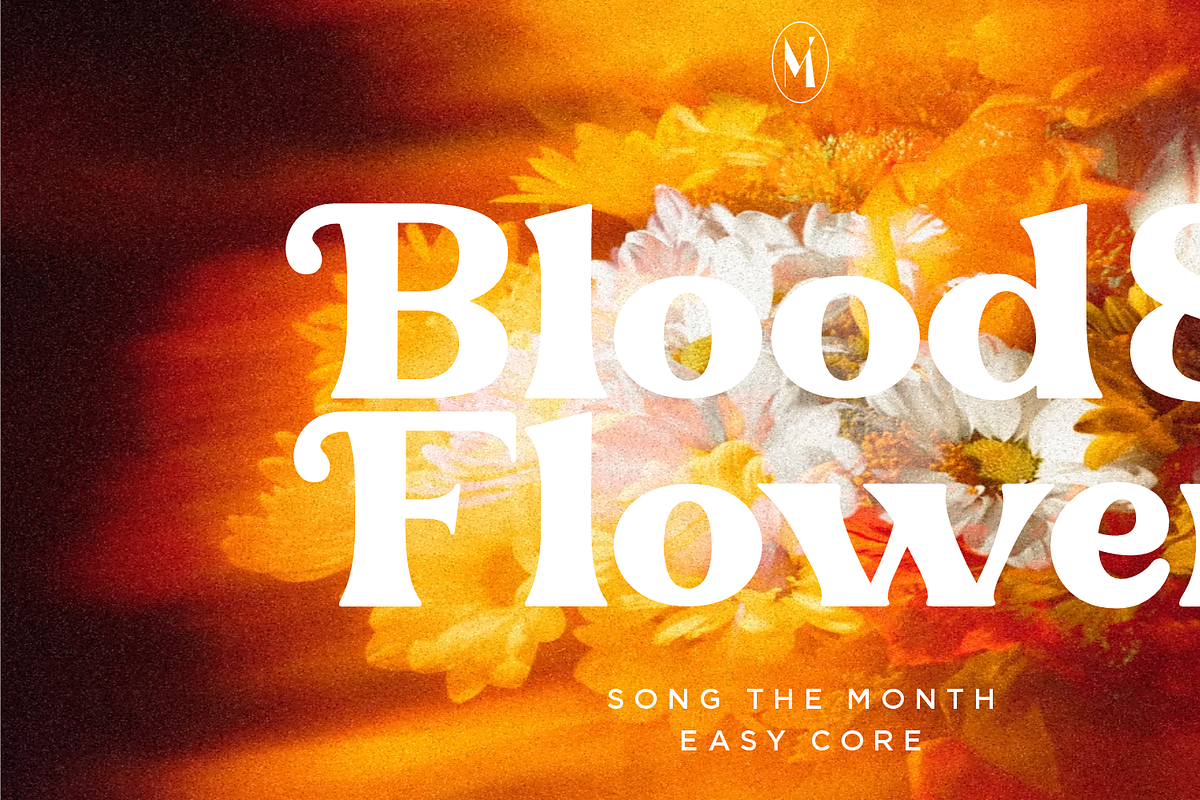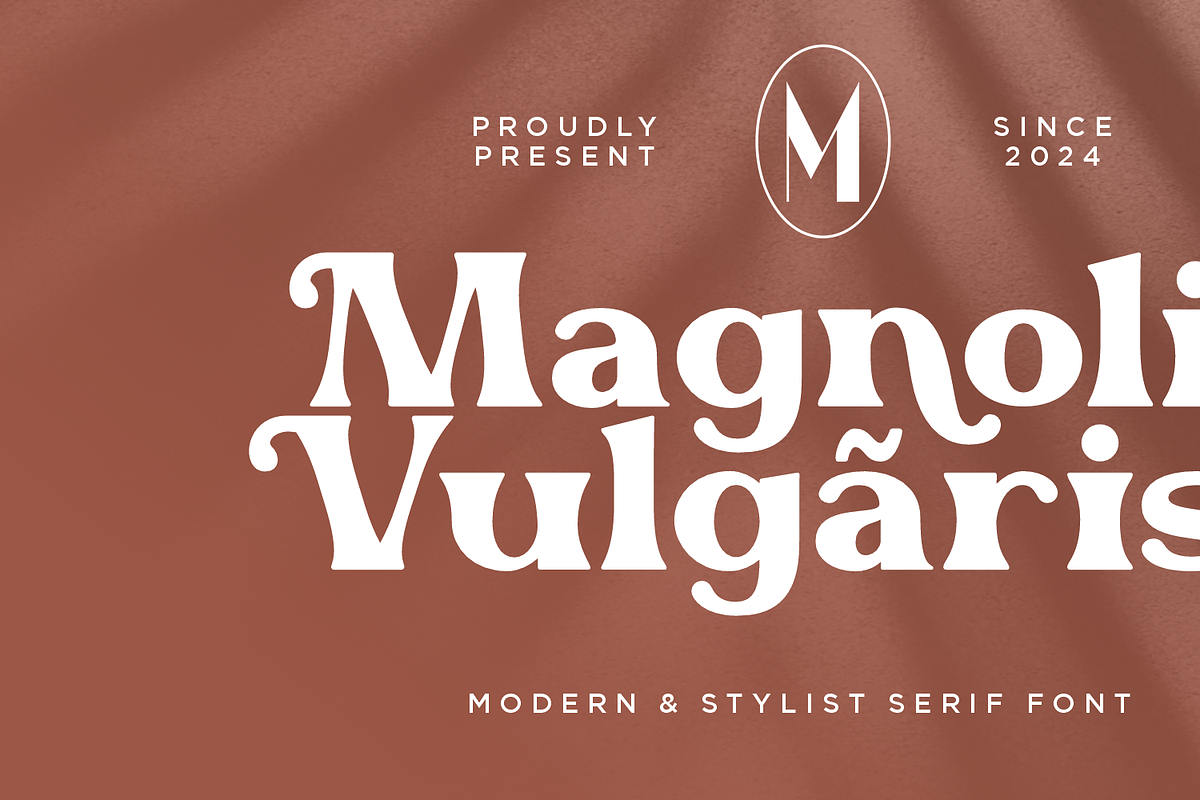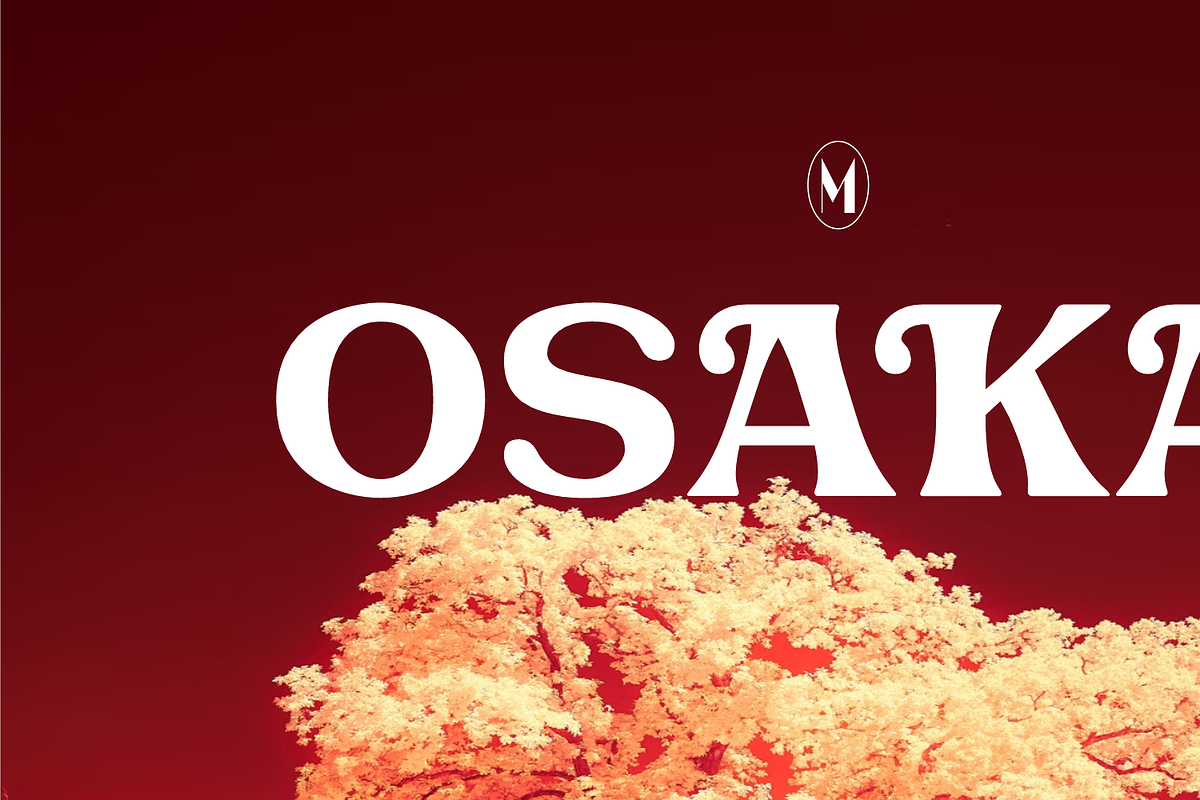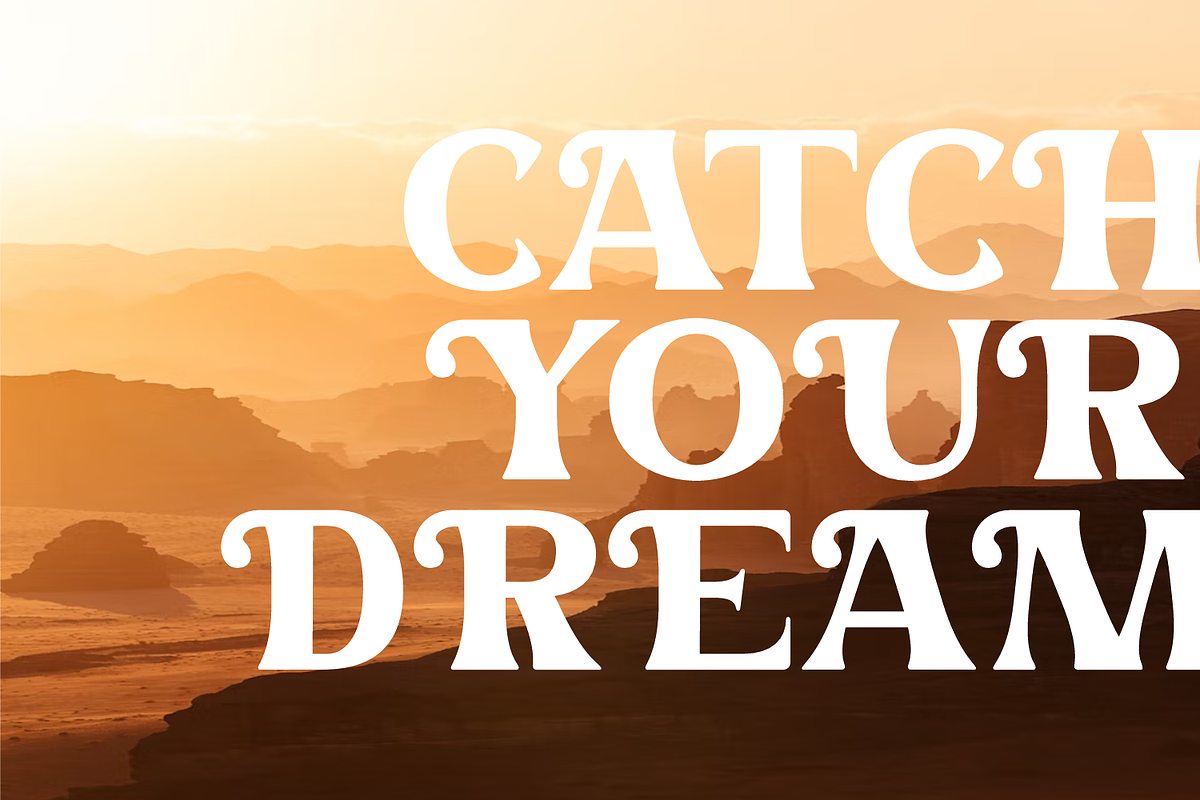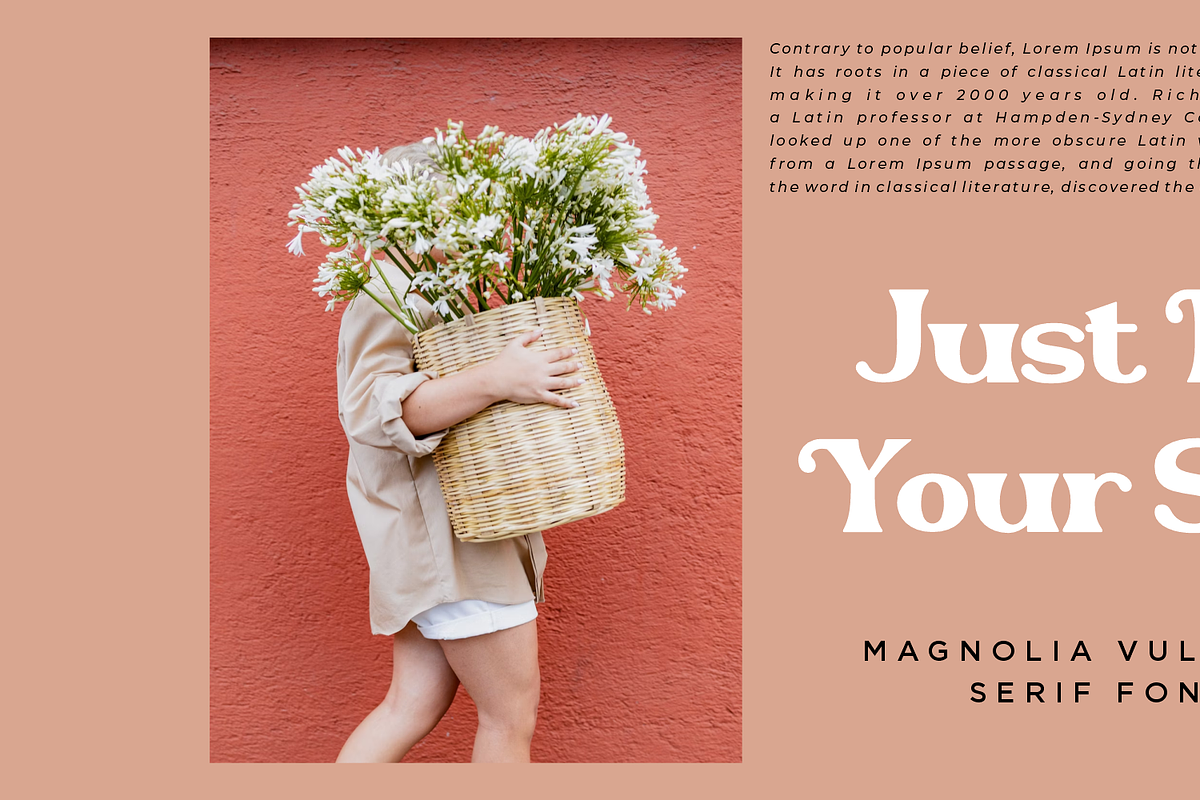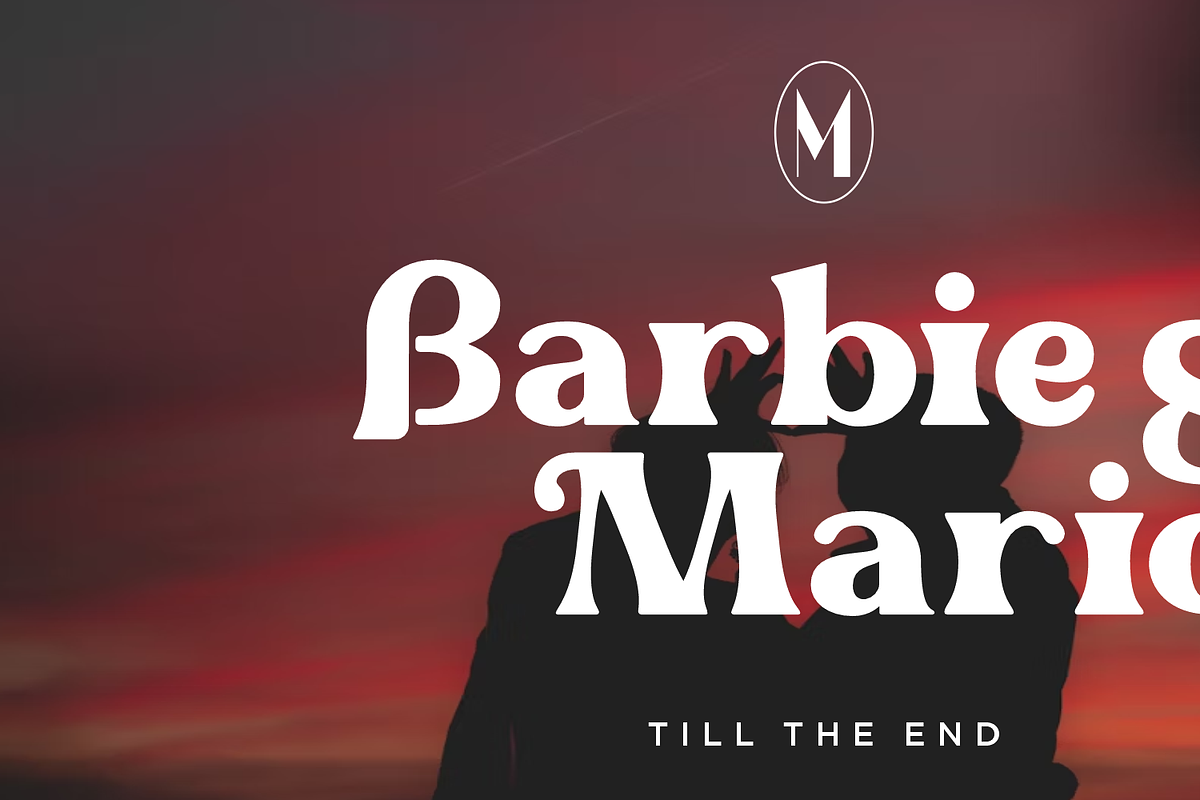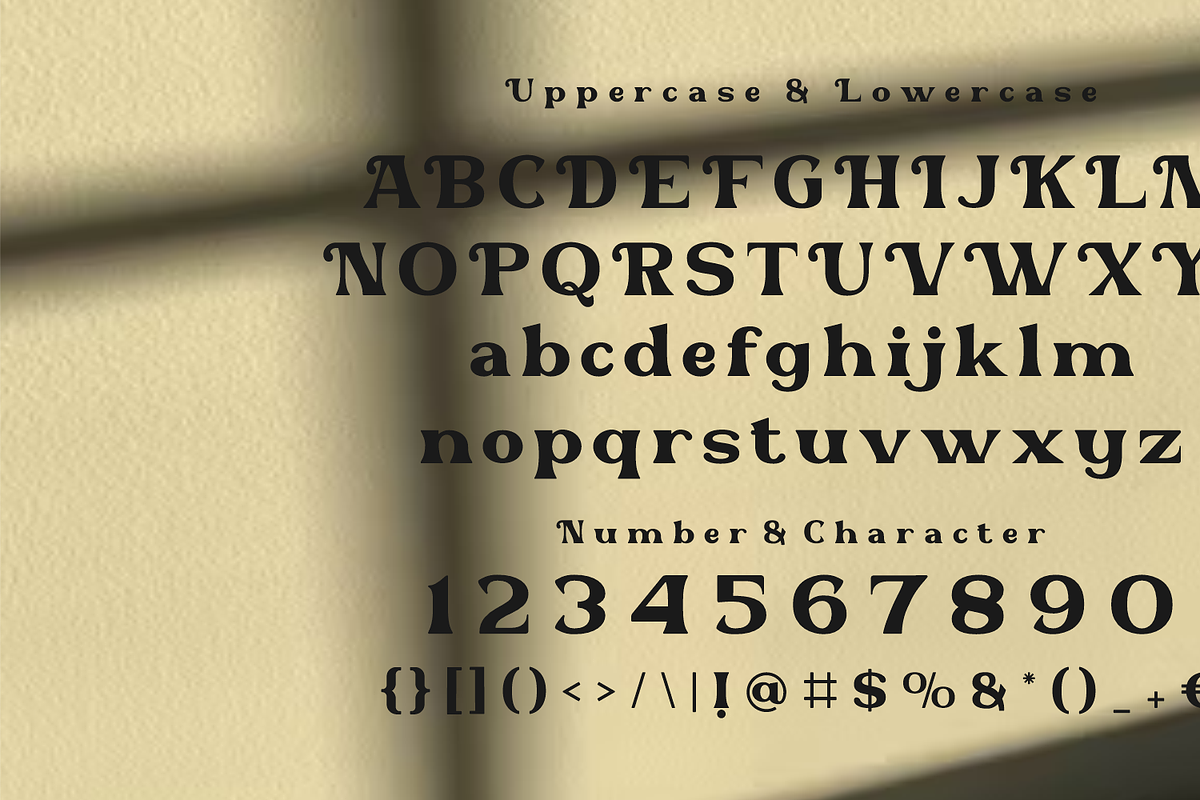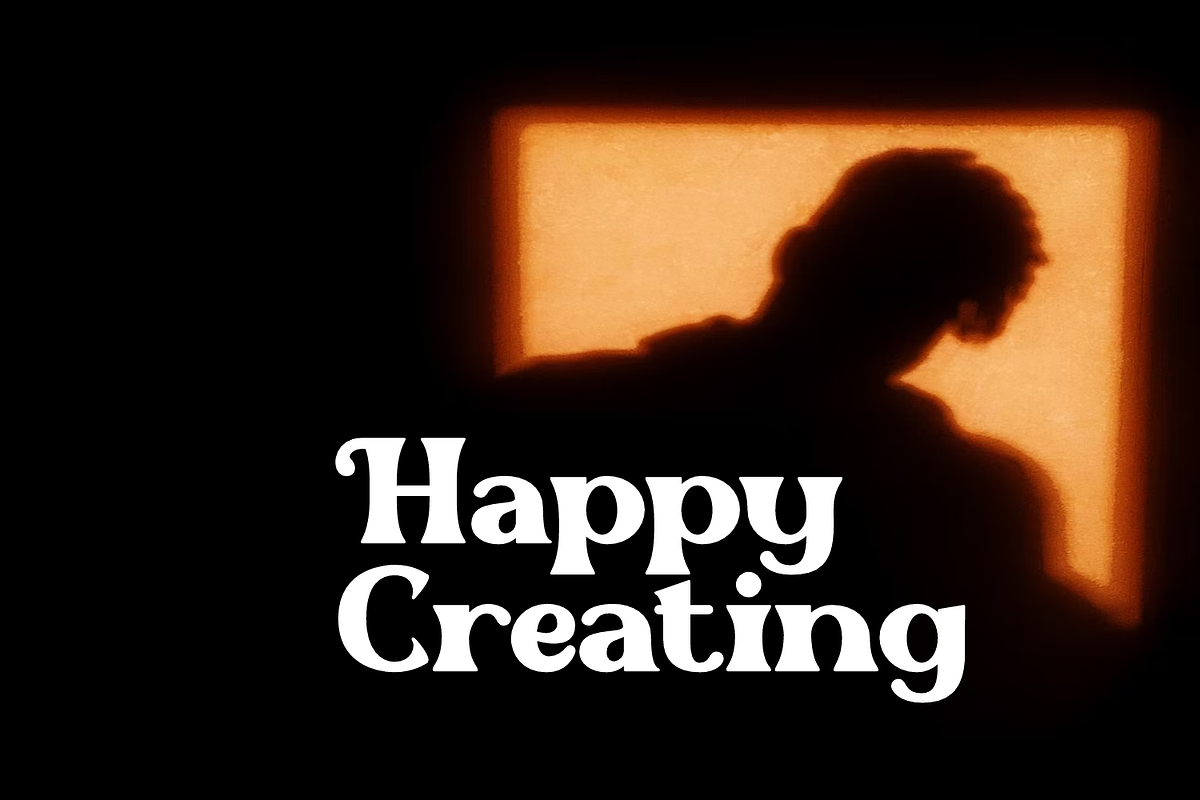
Magnolia Vulgaris
Magnolia Vulgaris font includes capital letters, numbers, and various punctuation marks. serif font with a stylish modern style. Created for posters, web design, branding, illustrations, badges and several other works